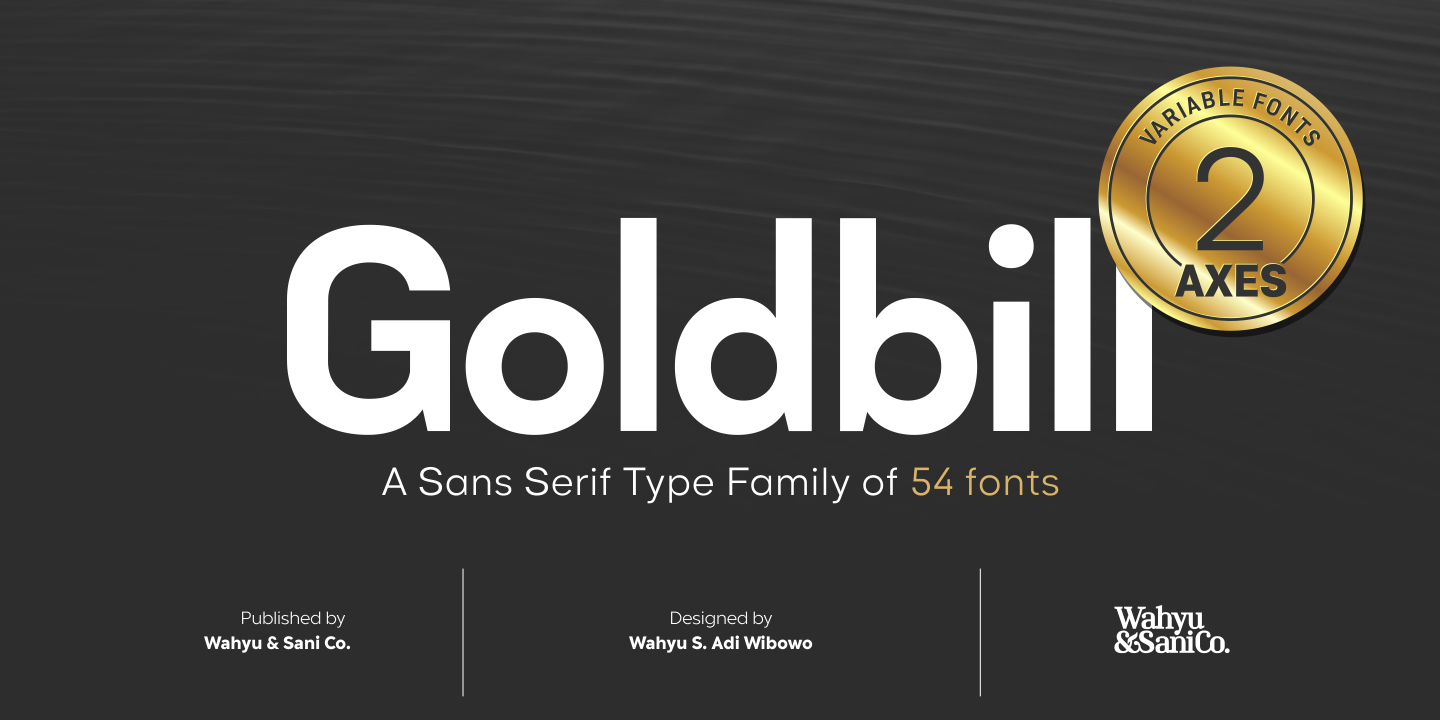
Goldbill Font is perfect for financial design projects including investment banking firms, wealth management companies, gold trading platforms, premium financial services, luxury banking institutions, precious metals dealers, financial advisory firms, and affluent lifestyle campaigns. This prestigious typeface excels in private banking services, investment consultancies, financial planning organizations, gold bullion dealers, and projects that celebrate financial prosperity and monetary excellence.
What makes Goldbill Font exciting is its wealthy financial character that perfectly captures the essence of golden prosperity and monetary success. The font features refined letterforms with golden proportions that reflect the prestigious value and enduring wealth of precious metal investments. Its luxurious design elements embody the spirit of financial achievement and monetary stability, making it perfect for projects that need to convey prosperity, trust, and connection to financial excellence. The carefully crafted golden details create an atmosphere of financial sophistication and monetary confidence.
Goldbill Font comes in multiple family variations including premium, wealthy, golden, and prestigious styles. Each weight maintains the distinctive financial character while offering different levels of monetary intensity and wealthy presence. The font family includes financial alternates, golden ligatures, and prosperity variations that provide designers with comprehensive options for creating truly prestigious and authentically financial typographic compositions that celebrate monetary success.
Whether you're designing financial branding, creating investment marketing materials, or developing wealth promotional graphics, Goldbill Font Free Download provides the perfect typographic foundation for projects that celebrate financial excellence and monetary prosperity. This exceptional typeface transforms ordinary text into compelling expressions of financial wisdom and golden success. Download this prosperous font today and invest your design projects with the financial elegance and golden sophistication that captures the essential spirit of monetary achievement and wealth management excellence.